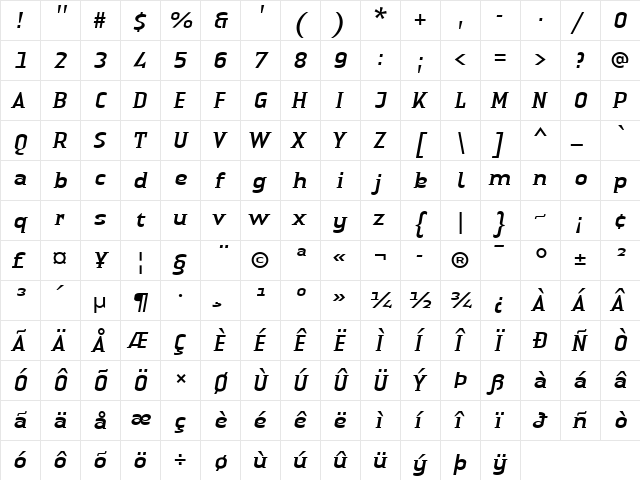
LTAuthenticSmallSerif Italic Font Preview
LTAuthenticSmallSerif Italic
LTAuthenticSmallSerif Italic Font Details
Design Context for LTAuthenticSmallSerif Typeface
LTAuthenticSmallSerif brings classic typographic sensibility to the table — its serifs and measured letterforms reflect centuries of print heritage. The slanted form adds forward momentum and visual energy.